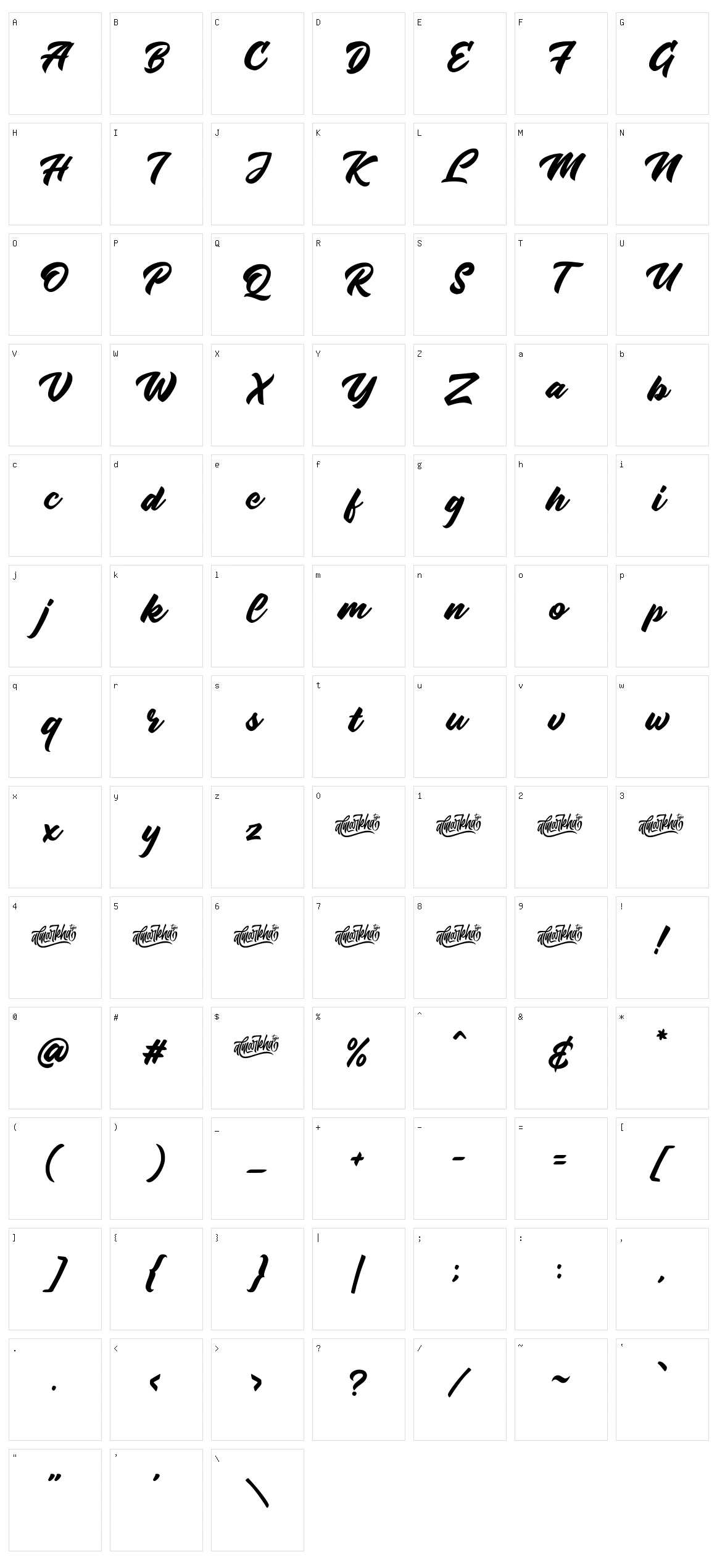
The free font Radens is carefully designed by Almarkhatype, showcasing a thoughtful balance of creativity and usability and falls under the Script font style. When you download the ZIP file, it contains only 425.35 KB of font files, making it lightweight and quick to download. Please review the license details below to understand permitted usage and distribution rights. If license information is not available, we recommend using this font for personal projects only or contacting the author directly for commercial usage permissions.
Radens Font By Almarkhatype Studio